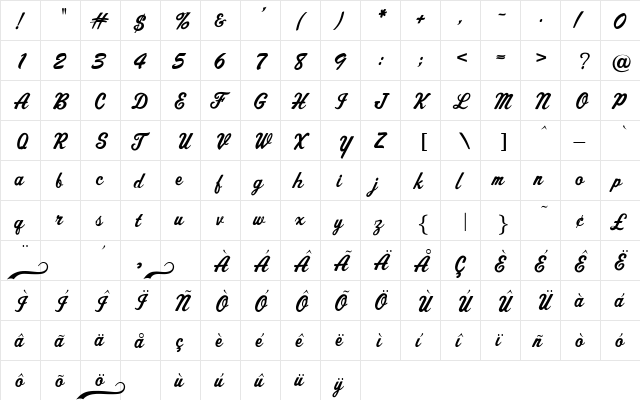
AthleticScript Regular
Design Context for AthleticScript Typeface
AthleticScript brings high-energy athletic personality to the page — its confident, muscular forms are built for impact.
A natural choice for gym brands, fantasy sports, jersey lettering, and action-driven headlines.
Font Pairing: Use alongside a condensed or geometric sans for supporting copy — keep the pairing bold, functional, and free of ornament.
Pro Tip: Use AthleticScript in all-caps headlines where its athletic energy can fully express itself. Pair with a solid, simple sans for supporting text.